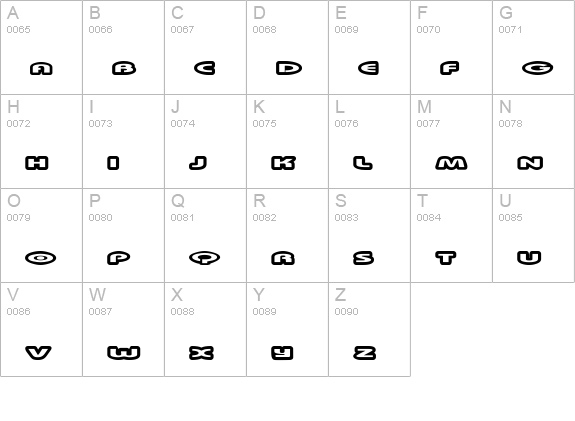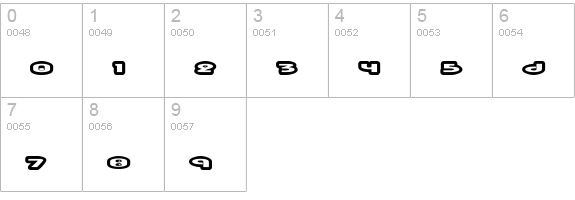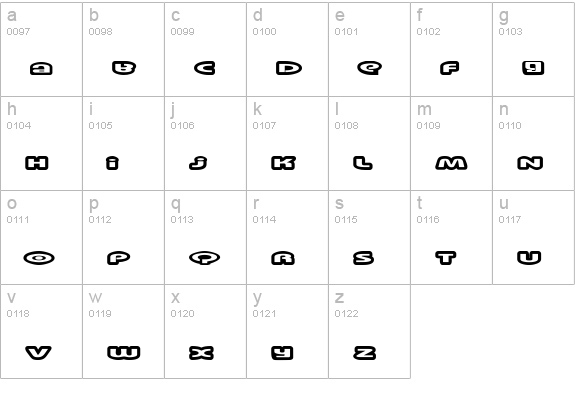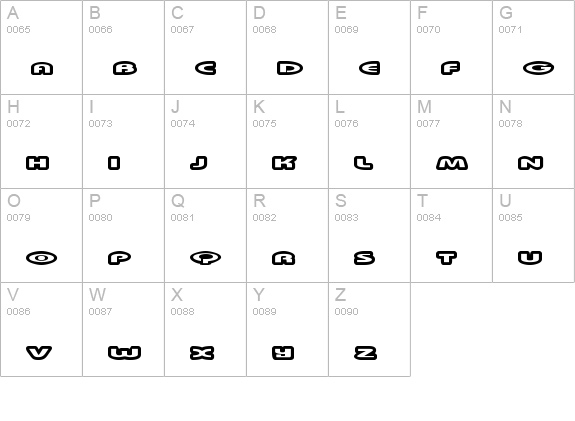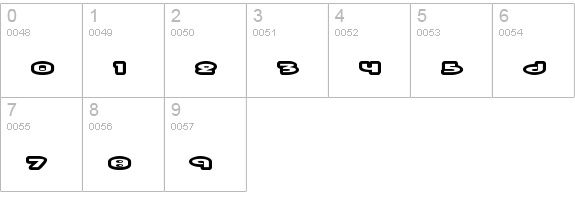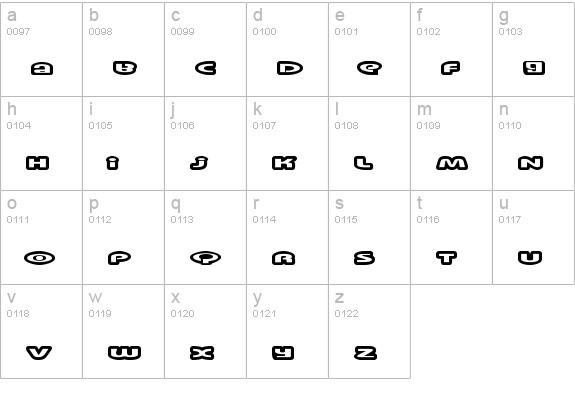
Swinkydad Font Details
Introducing Swinkydad font, a beautiful and modern typeface that will elevate your design projects to the next level. With its sleek lines and elegant curves, Swinkydad exudes sophistication and charm. This versatile font is perfect for a wide range of design applications, from branding to print materials to web design. What's even better is that Swinkydad is available for free download at FontsMarket.com. Yes, you read that right - you can get your hands on this stunning font without spending a penny. Don't miss out on the opportunity to enhance your designs with the beauty of Swinkydad. Download it now and start creating stunning visuals that will leave a lasting impression.